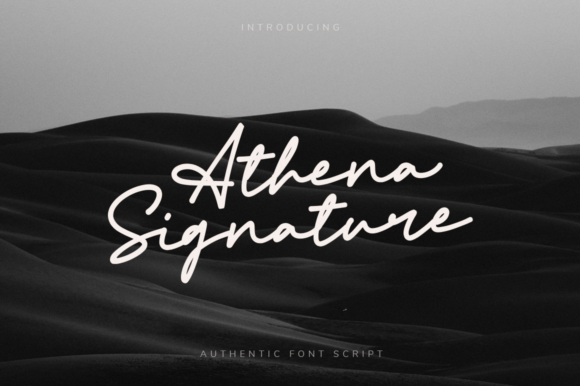
Discover the Timeless Elegance of the Athena Signature Font
There’s something magical about the moment when a design comes together – the perfect blend of colors, textures, and typography. It’s as if the entire project has been elevated to a new level of sophistication, and that’s exactly what the Athena Signature Font is designed to do.
This authentic and stylish script font is the perfect addition to any project seeking a touch of elegance and refinement. Not too thin and not too thick, the Athena Signature Font strikes a beautiful balance between versatility and visual impact. With its varied strokes and curves, it adds a sense of personality to any text, making it perfect for designers looking to leave a lasting impression.
Whether you’re working on a wedding invitation, a branding project, or a personal blog, the Athena Signature Font is a valuable tool in your design arsenal. Its timeless elegance makes it a great choice for projects that require a classic, sophisticated look.
Athena Signature Font Key Features
- Font Family: Athena Signature Font is a custom-designed font family that offers a unique and elegant look for signatures and handwritten text.
- Character Count: This font family includes a vast character set, including uppercase and lowercase letters, numbers, and special characters.
- Unique Characteristics: The font features a distinctive blend of modern and classic elements, with subtle flourishes and connectors that give it a personal touch.
Athena Signature Font Review
As a designer, I was excited to dive into the Athena Signature Font and see if it lived up to its name. Here’s my honest review.
- Elegant and sophisticated aesthetic: The Athena Signature Font has a classic feel that’s perfect for luxury brands or high-end marketing materials.
- Good legibility: The font is clear and easy to read, making it a great choice for body text or headlines.
- Neutral tone: The font’s tone is neutral, making it versatile and easy to pair with other fonts.
- Limited expressiveness: The Athena Signature Font is a bit too straightforward, lacking the unique character of some other fonts.
- No bold or italic options: The font only comes in a regular weight, which can be limiting for designers who need more flexibility.
Overall, I’d give the Athena Signature Font 3.5 out of 5 stars. While it’s a solid choice for certain projects, it falls short in terms of expressiveness and flexibility. Still, it’s a great option for designers who want a clean, sophisticated look.
Athena Signature Font is ideal for creating elegant and sophisticated designs. Some common use cases include:
- Business cards and letterheads.
- Resume and CV templates.
To get the most out of Athena Signature Font, experiment with different font sizes, styles, and colors to create unique and eye-catching designs.